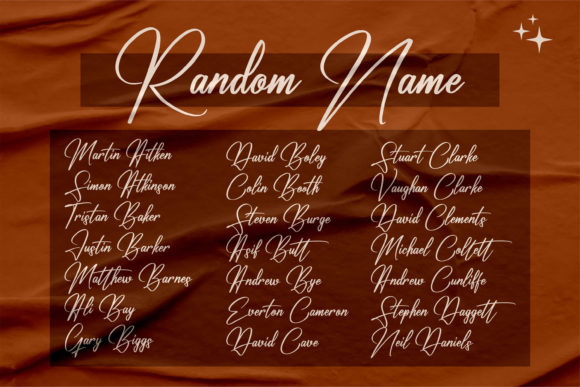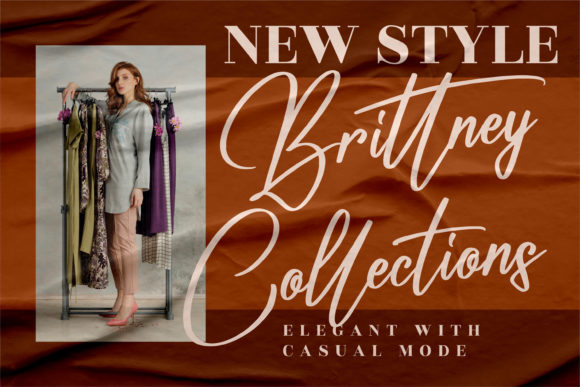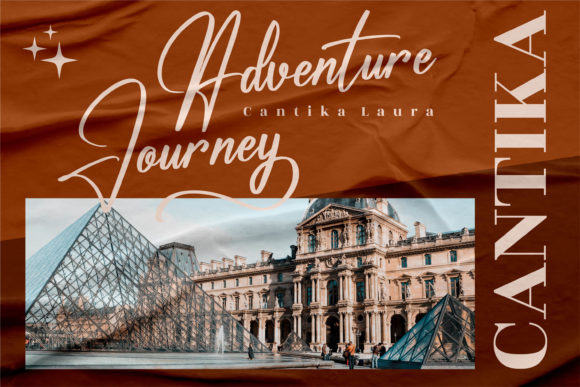
Introduction to Renatta Signature Font
Remember that moment when you’re working on a creative project, and the right font can make all the difference? It’s like finding the perfect outfit for a special occasion – it elevates your entire look and leaves a lasting impression. For designers, the right font can be the game-changer that takes their project from good to great.
That’s exactly why we’re excited to introduce you to the Renatta Signature Font – a high-quality, flowing script font that’s perfect for adding a touch of elegance to your designs. With its modern look and feel, this font is ideal for logos, branding, invitations, and much more. Whether you’re working on a wedding design or a social media post, Renatta Signature Font is sure to make your project stand out.
Key Features of Renatta Signature Font
- High-quality design: Renatta Signature Font is crafted with attention to detail, making it perfect for creative projects that require a touch of elegance.
- Unique characteristics: The font’s distinctive flair and stylish lines make it an ideal choice for designers looking to add a touch of sophistication to their creative projects.
Honest Review: Renatta Signature Font
I recently stumbled upon the Renatta Signature Font, and I must say, it’s been a game-changer for my design projects. The high quality of the font is immediately noticeable, making it a fantastic addition to any creative project.
- ✨ Beautifully crafted characters with a sleek, modern design
- ✨ Excellent for creating eye-catching typography in branding, logos, and advertisements
One of the standout features of the Renatta Signature Font is its ability to work well with transparent backgrounds. This opens up endless possibilities for designers looking to create sleek, modern designs.
However, I do have a few minor complaints. ⚠️ The font’s versatility is somewhat limited, as it’s primarily suited for modern, clean designs. It may not be the best choice for more traditional or ornate projects.
Overall, I’m thoroughly impressed with the Renatta Signature Font. It’s a high-quality design resource that’s perfect for designers looking to elevate their creative projects. If you’re in the market for a modern, stylish font, I highly recommend giving it a try.
Tips for Getting the Most Out of the Renatta Signature Font
Use the Renatta Signature Font in conjunction with a high-quality image or graphic to create a visually appealing design.
Experiment with different font sizes and styles to add depth and interest to your design.
Use the transparent background feature to create a seamless design that blends with your background.
The Renatta Signature Font is a versatile design resource that can be used in a variety of creative projects, including:
Business cards and brochures
Wedding invitations and stationery
Blog posts and social media graphics
Marketing materials and advertising campaigns